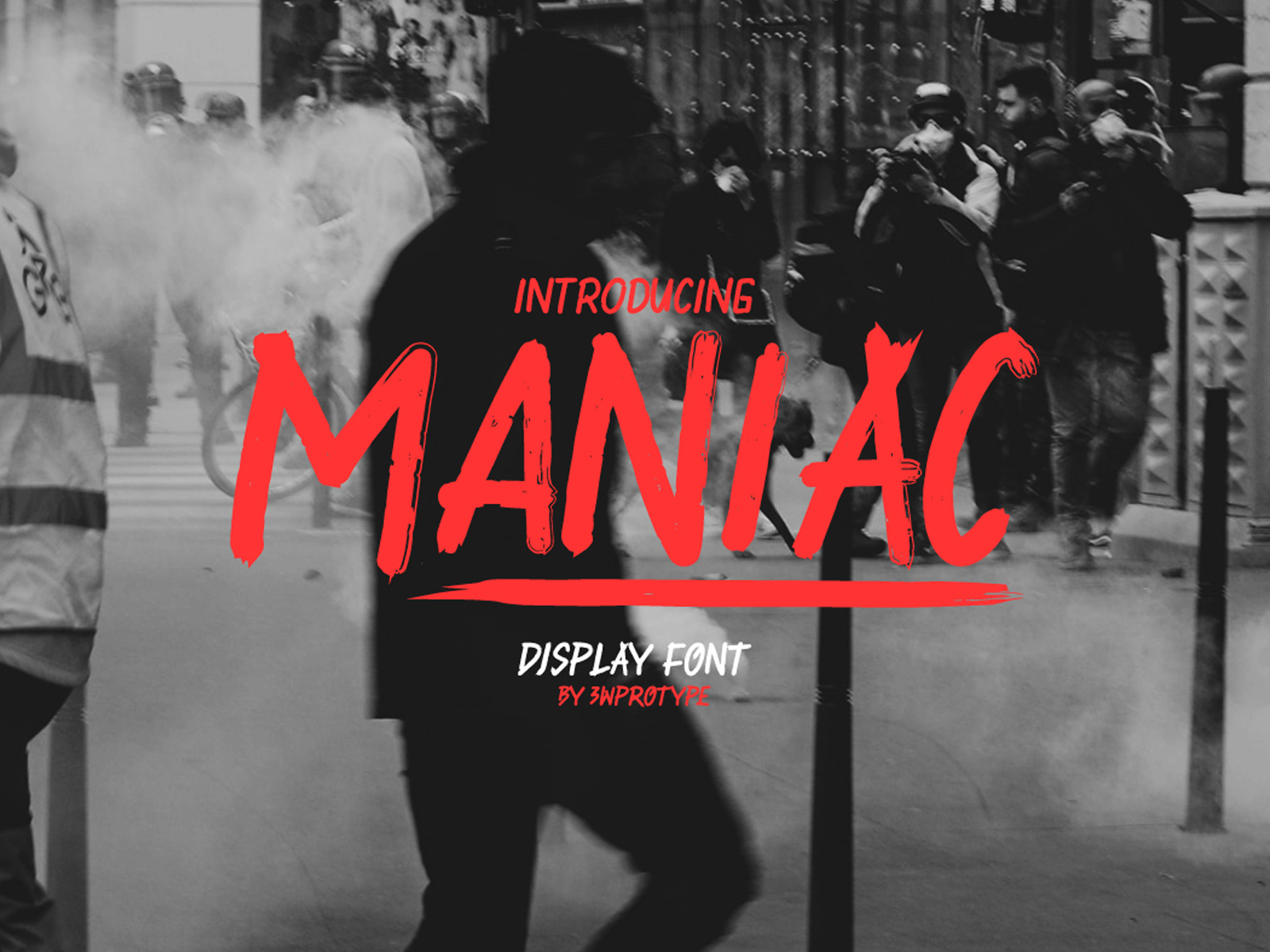
Maniac | FREE FONT
Introducing Maniac Display font that we made specifically for your branding needs, posters, quotes and more. with a stylish typeface with a brush set suitable for designers who are looking for an attention-grabbing font for announcements such as posters and others.